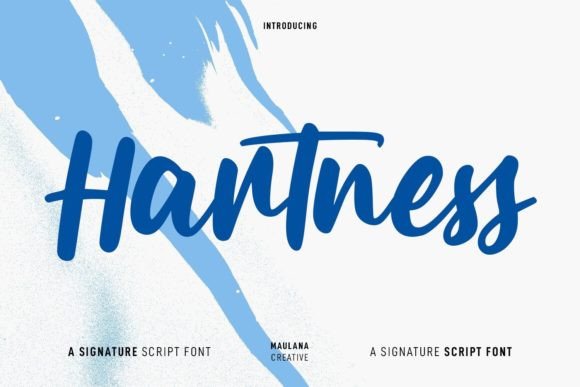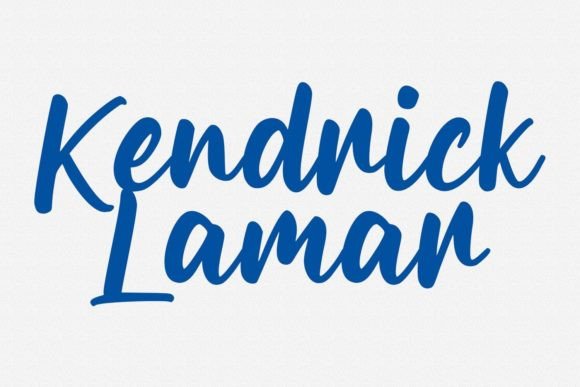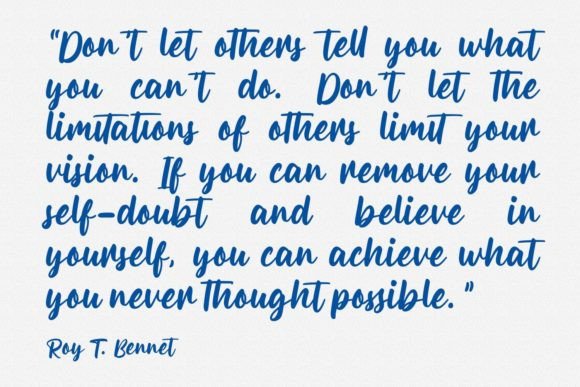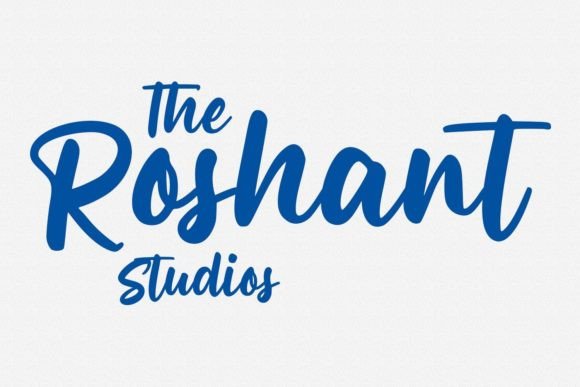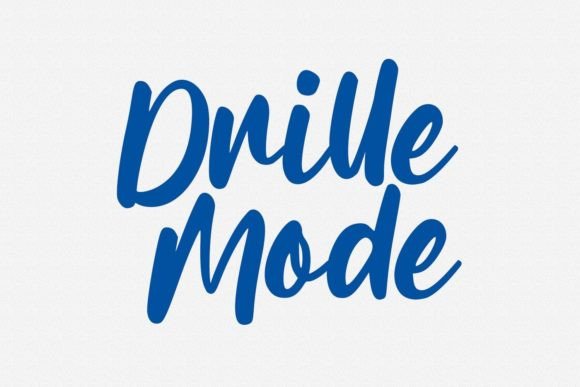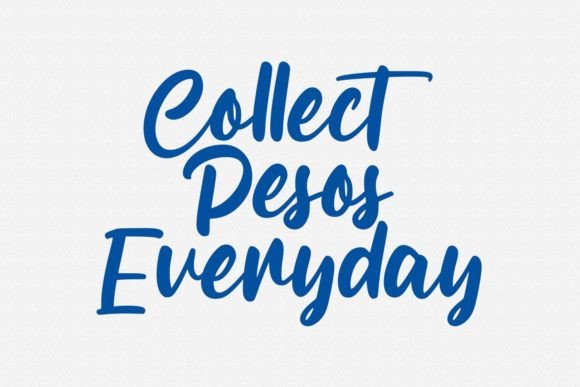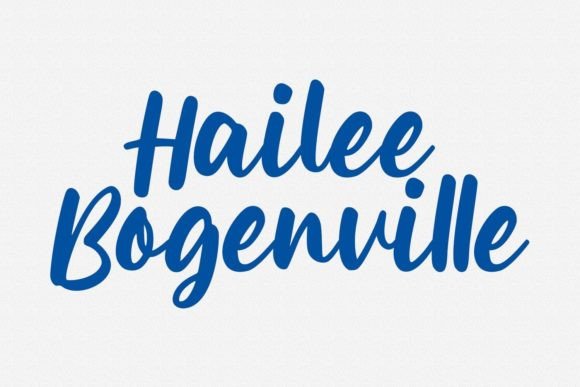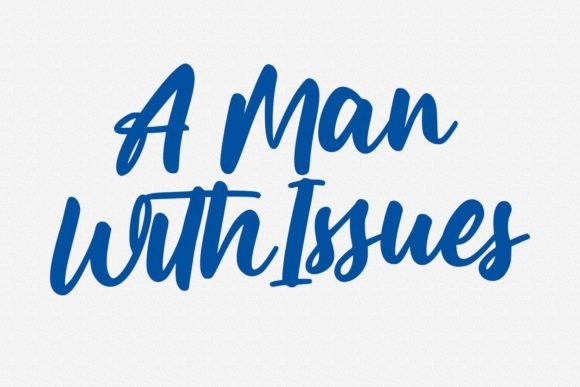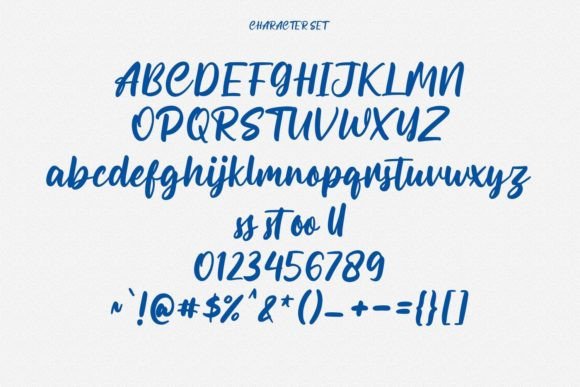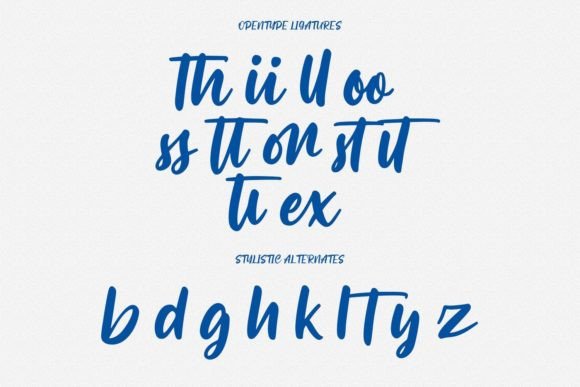
Hartness Font
About Hartness Font
Flashing Bright is a captivating and exquisite handwritten font distinguished by its elegant touch, making it ideal for a myriad of creative projects. Immerse yourself in its remarkably unique and timeless style, harnessing its beauty to craft truly spectacular designs! Whether you’re working on graphic design, branding, or any other creative endeavor, this font adds a touch of sophistication and flair that is bound to captivate your audience. The fluidity of its strokes and the artistic charm it exudes make it a versatile choice for various applications.
Let the individuality of Flashing Bright elevate your creations, breathing life into your favorite projects. The font’s inherent charm lends a sense of refinement, making your designs stand out with a touch of class. Its versatility allows it to adapt seamlessly to a range of themes and concepts, from modern and chic to classic and timeless.
Picture your typography coming to life with the graceful curves and strokes of Flashing Bright, creating a visual masterpiece that leaves a lasting impression. This font isn’t just a typographic choice; it’s a statement, a testament to your commitment to aesthetics and creativity.
As you delve into the world of design with Flashing Bright, you’ll find that it effortlessly transforms the ordinary into the extraordinary. Its allure lies in its ability to merge sophistication with a handmade feel, striking the perfect balance between elegance and approachability.
In conclusion, Flashing Bright is not just a font; it’s an artistic companion that enhances the visual narrative of your projects. Let its neat and beautiful handwritten charm become the signature element of your designs, ensuring they are remembered for their distinct and captivating style. So, fall in love with the artistry of Flashing Bright and let your creativity shine through every stroke!